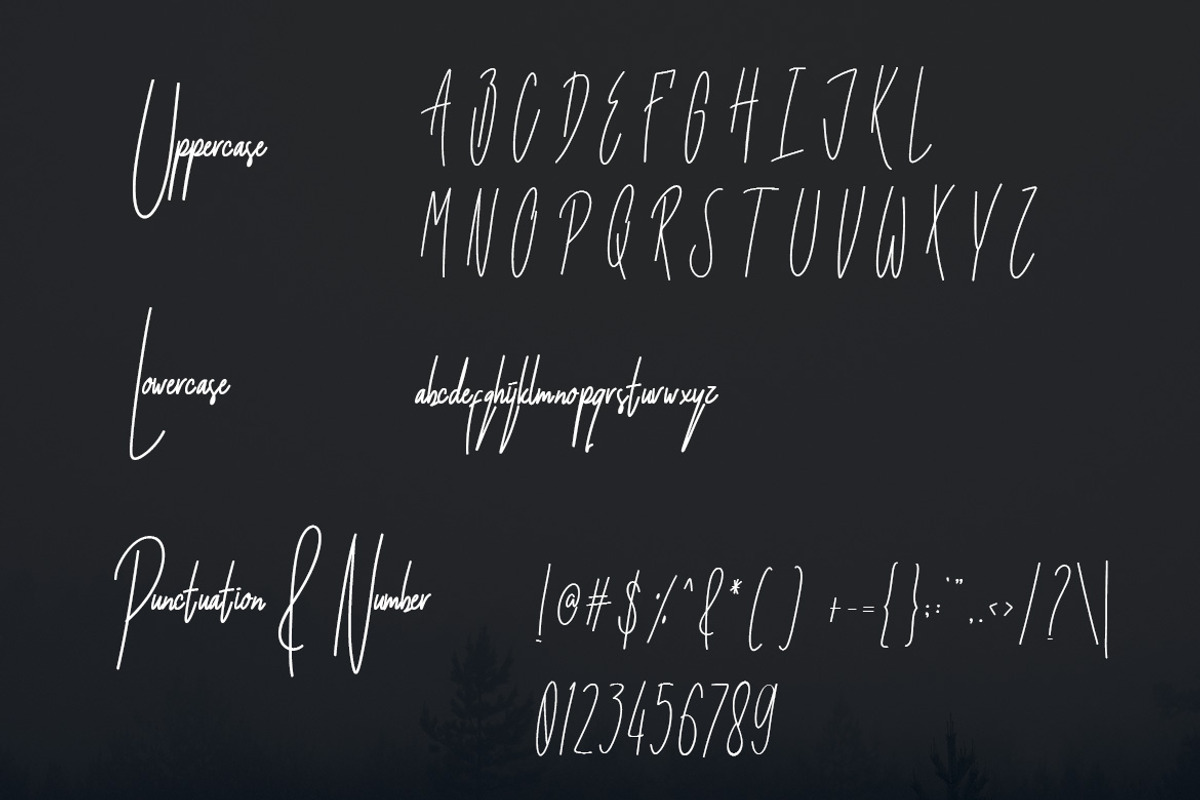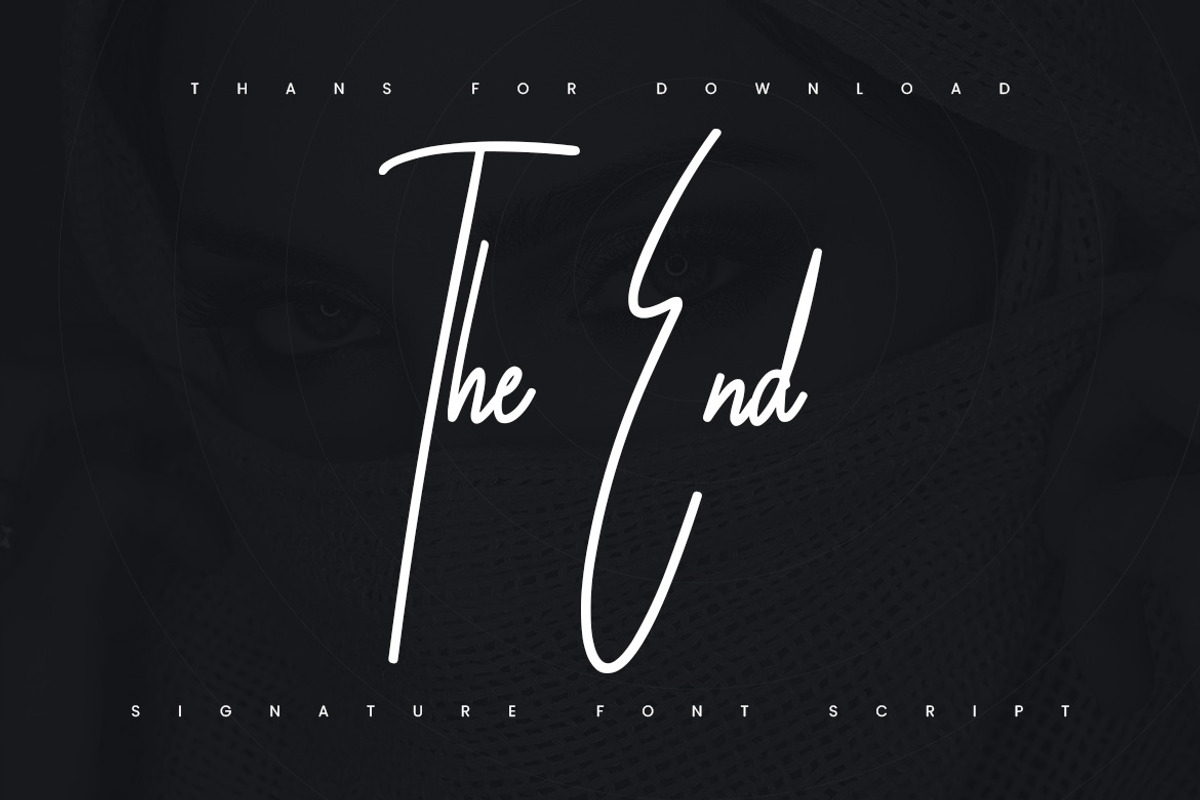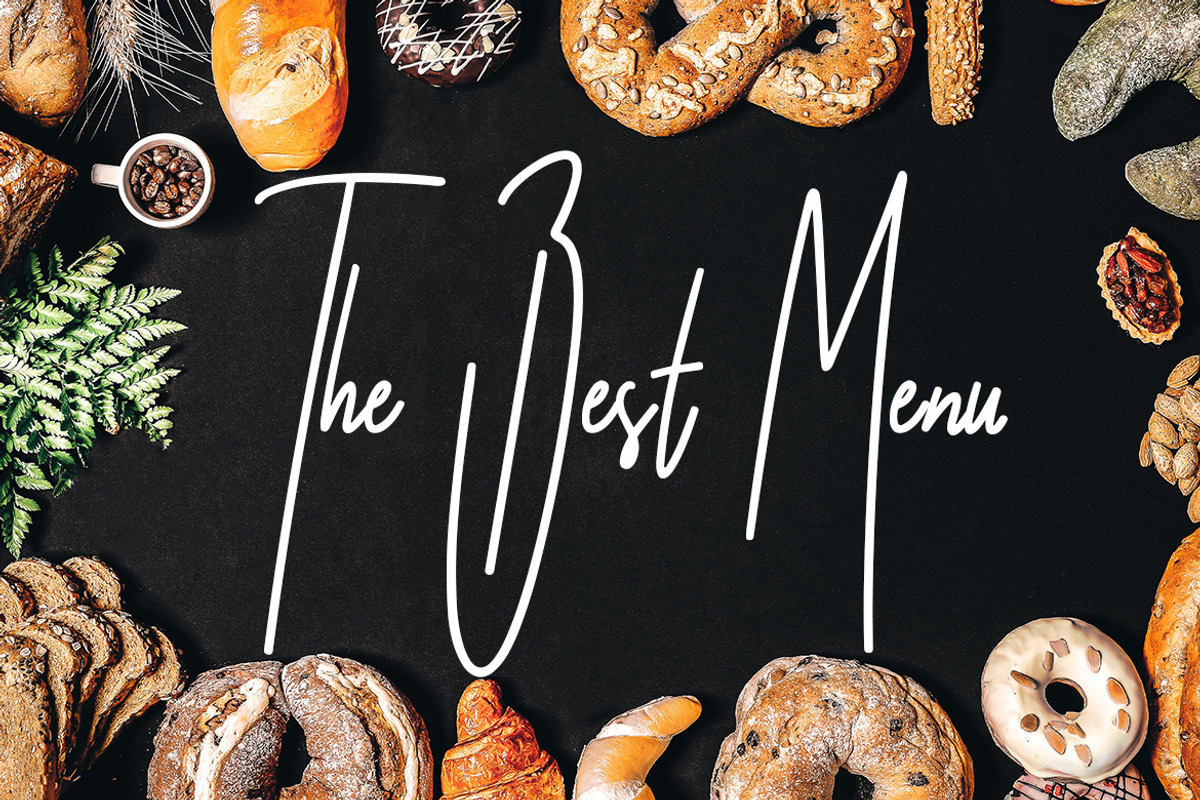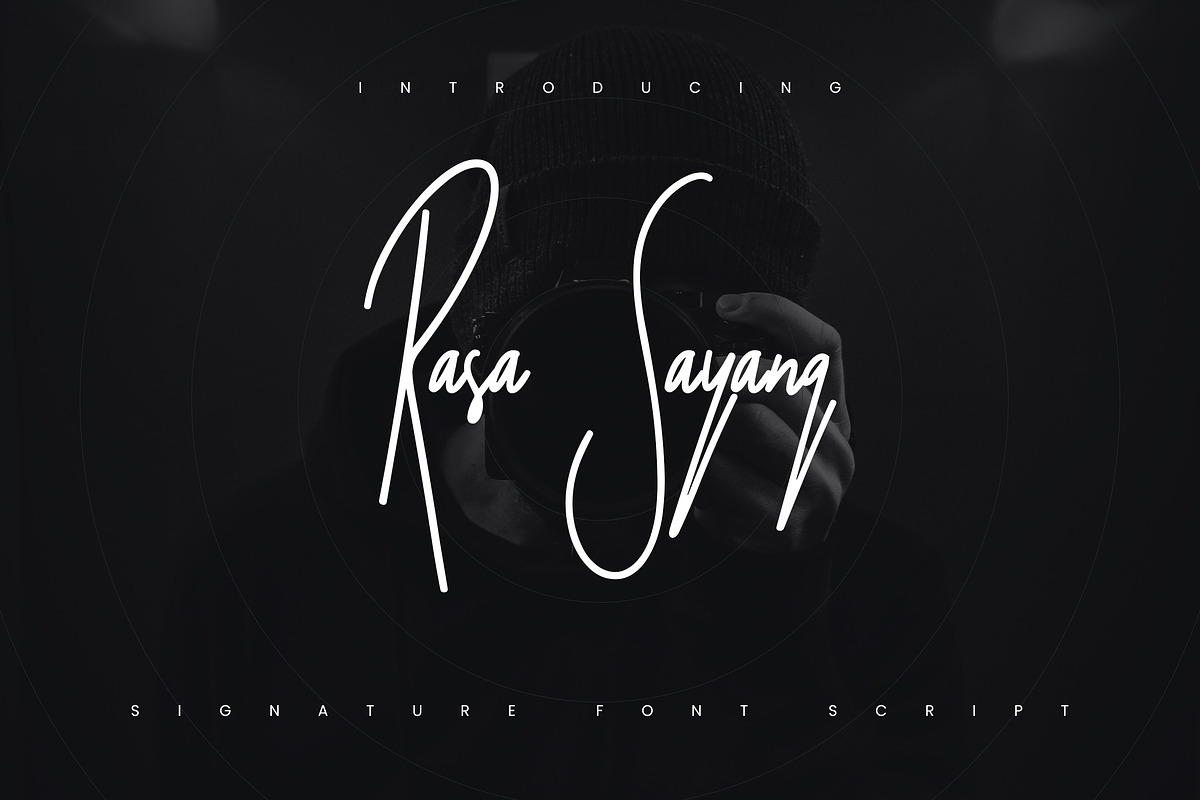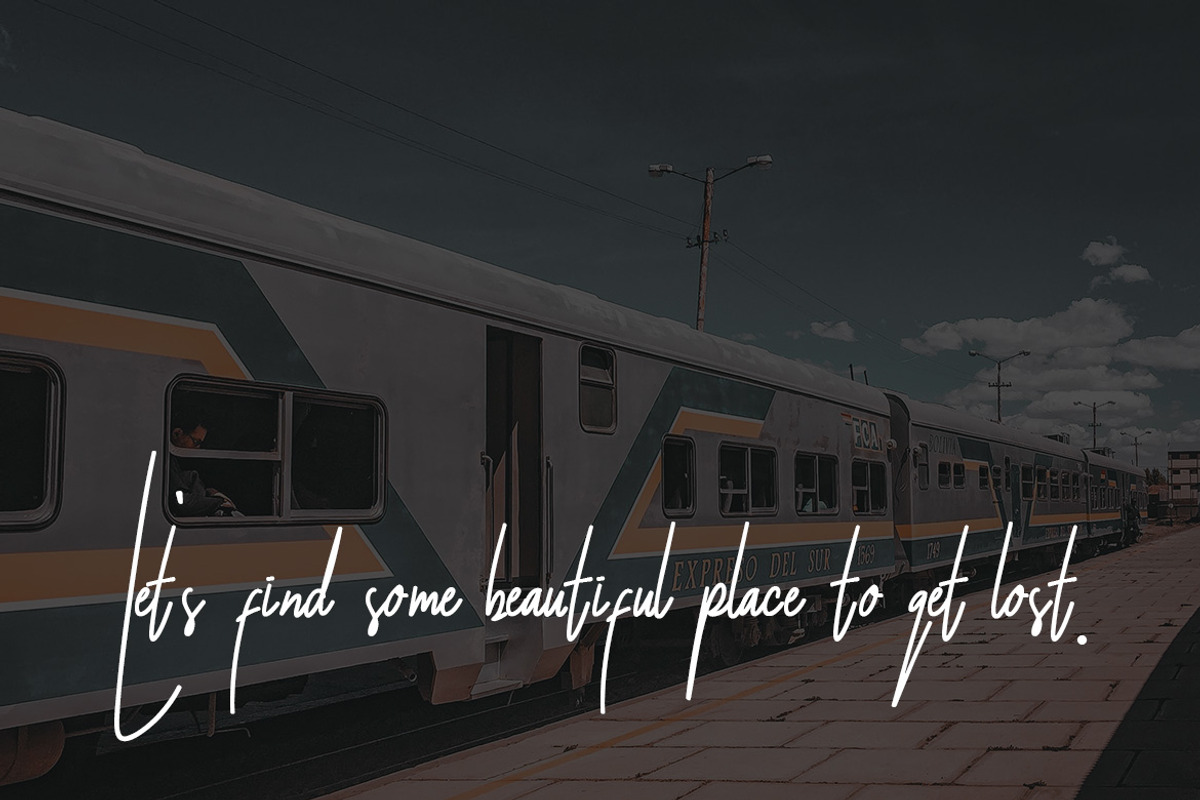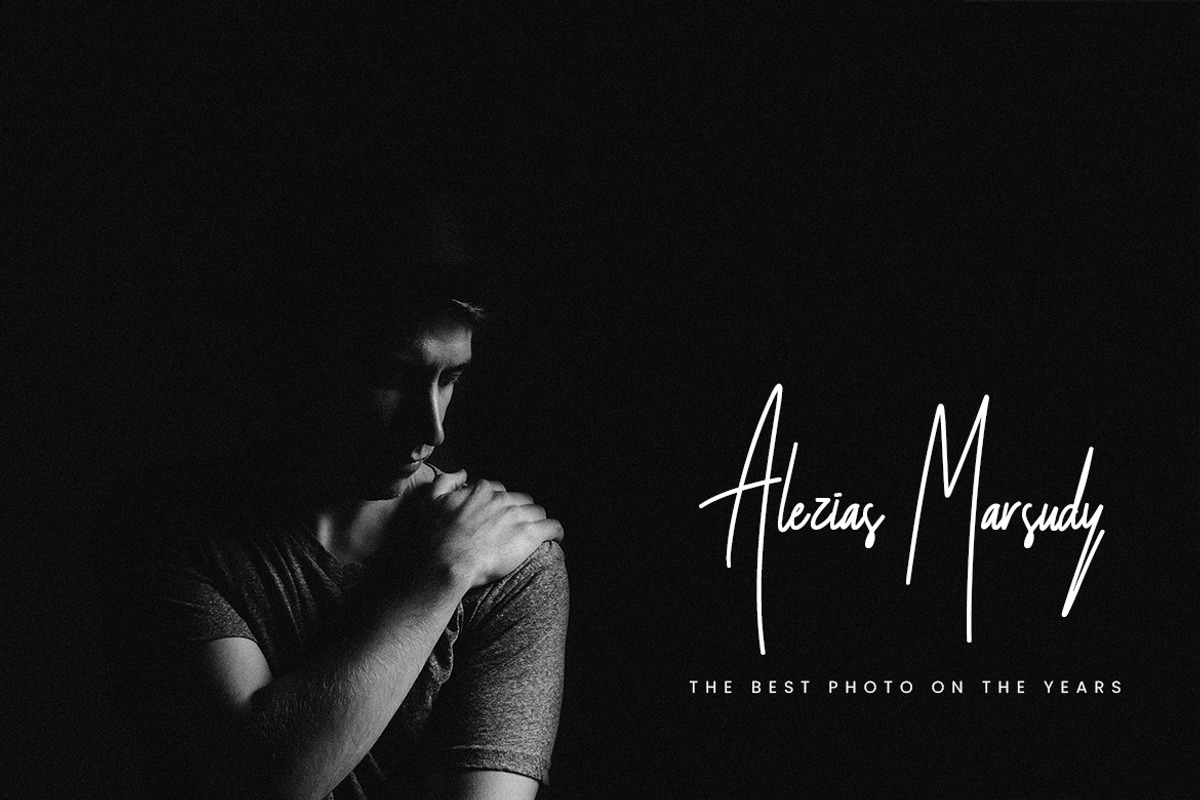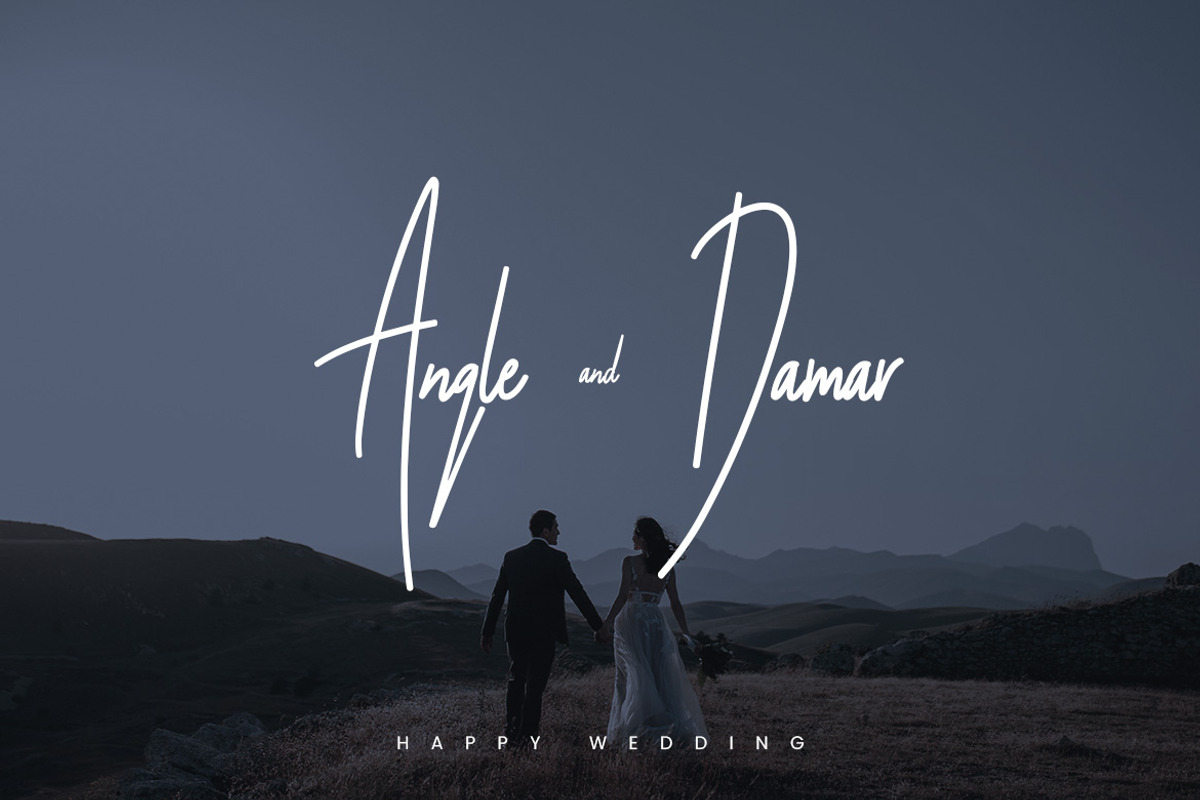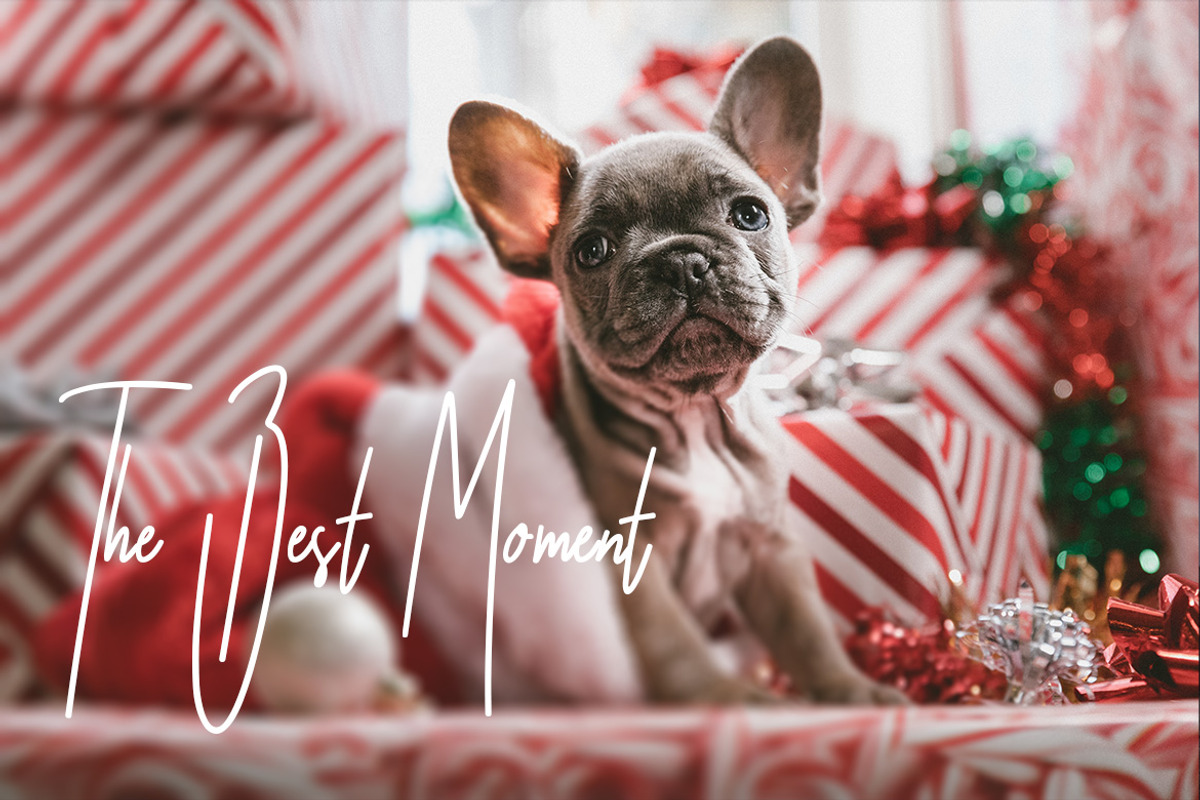
Rasa Sayang - Signature Scipt Font
Rasa Sayang Font is a font with distinctive handwritten characters perfect for branding projects, logos, wedding designs, media posts, advertisements, product packaging, product designs, labels, photography, watermarks, invitations, stationery, and any project who need handwritten dishes.